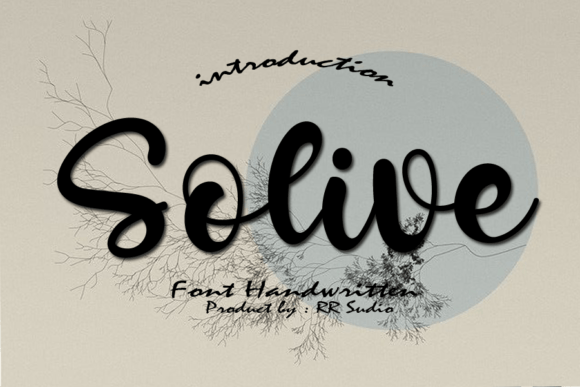
Solive Font
About Solive Font
Solive is more than just a typeface; it’s a sweet, cursive masterpiece that effortlessly marries elegance with charm. This enchanting font is akin to handwritten poetry, where each stroke tells a story of its own. With its gentle curves and graceful lines, Solive is more than a font; it’s an artistic expression that adds a touch of sophistication to any design project.
Imagine a font that not only captures attention but also captures hearts. Solive is precisely that font. Its soft, flowing characters possess a timeless appeal that can transform even the simplest of designs into captivating visual experiences. Whether you’re designing wedding invitations, greeting cards, or romantic love letters, Solive will infuse your creations with a sense of joy and romance that is simply unmatched.
One of the remarkable qualities of Solive is its versatility. It effortlessly adapts to a variety of design ideas, making it a go-to choice for designers across the globe. Whether you’re working on a branding project, a website design, or social media graphics, Solive’s elegant charm will elevate your work, leaving a lasting impression on anyone who lays eyes on it.
The beauty of Solive lies not just in its aesthetics but also in the emotions it evokes. The cursive script feels personal, like a handwritten note from a dear friend, adding a warm and intimate touch to your projects. Its sweetness is palpable, and its romantic essence is undeniable. When you choose Solive, you’re not just choosing a font; you’re choosing to infuse your designs with love, passion, and creativity.
In a world filled with generic fonts, Solive stands out as a beacon of creativity and originality. Its meticulously crafted characters reflect the dedication and craftsmanship of its creators. Each letter is a work of art, meticulously designed to create a harmonious flow that is pleasing to the eye and soothing to the soul. When you use Solive, you’re not just using a font; you’re embracing a legacy of artistic brilliance and design excellence.
Solive is more than a typographic choice; it’s a design philosophy. It reminds us that beauty lies in the details, in the curves of every letter and the spaces between words. It teaches us that a font can be more than just a tool; it can be a source of inspiration, sparking creativity and igniting the imagination. So, whether you’re a seasoned designer or someone embarking on their creative journey, Solive is your trusted companion, ready to add a touch of magic to your projects.
In a world where first impressions matter, choosing the right font is crucial. Solive not only makes a statement; it creates an experience. It’s not just a typeface; it’s a storyteller, weaving tales of love, elegance, and sophistication. So, if you’re looking to transform your designs and leave a lasting impact, look no further than Solive. Let its sweet and cursive handwritten charm redefine your creative boundaries and inspire designs that are nothing short of extraordinary.